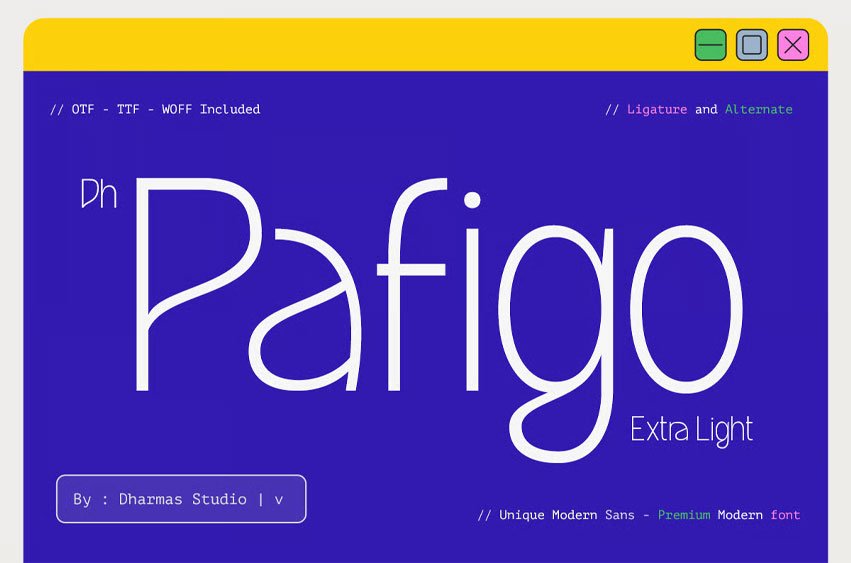
Dh Pafigo Extra Light Font is a modern sans serif typeface with a clean, rounded design that blends geometric structure with a friendly tone—perfect for sleek logos, minimalist branding, and stylish editorial layouts. This Extra Light version offers an airy, elegant touch that adds a graceful and refined look to your designs.
Carefully crafted to balance professionalism and personality, Pafigo Extra Light is ideal for brands that want to feel sophisticated, modern, and approachable.
With OpenType features, Canva compatibility, and multilingual support, it’s a go-to logo font for creatives who value both versatility and visual impact.
Font Features:
- Single Style Included: Extra Light
- 48+ Alternates & Ligatures: Creative flexibility
- OpenType Features: Advanced typographic control
- Multilingual Support: Wide language coverage